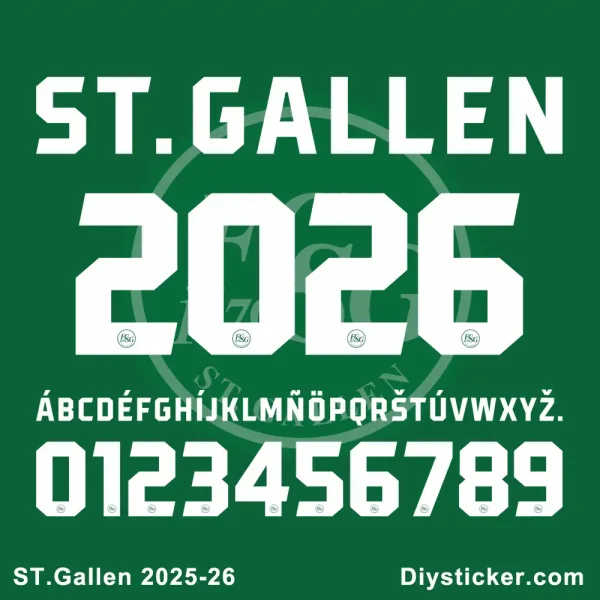
St. Gallen 2025-26 Font Downloads
Design with the authentic style of FC St. Gallen using the official St. Gallen 2025-26 Font. This professionally crafted typeface replicates the club’s official lettering, perfect for creating genuine-looking designs for any project supporting Die Espen.